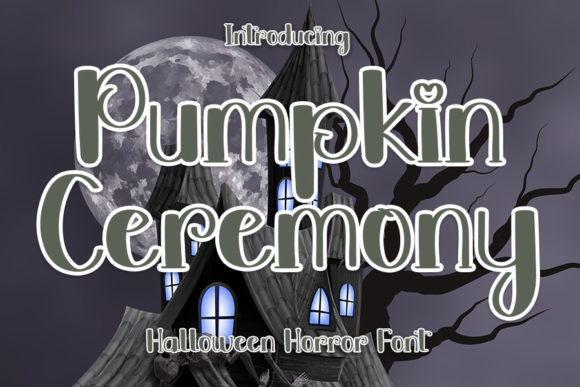
Dive into the Enchanting Realm of Pumpkin Ceremony Font: Where Elegance Meets Whimsy!
Prepare to be swept away by Pumpkin Ceremony, a display font that weaves a spell of elegance and enchantment. Created by the visionary minds at K_IN Studio, this font is a masterpiece designed to make your designs shine. Step into a world where sophistication and whimsy intertwine, where every letter dances with grace and captivates the eyes.
Whether you're crafting breathtaking wedding place cards, conjuring enchanting invitations, or weaving magical stories through book pages, Pumpkin Ceremony will be your steadfast companion. Its meticulously crafted characters exude a timeless charm, adding a touch of timeless beauty to every project you undertake.
Picture this: Your wedding guests are greeted by place cards adorned with Pumpkin Ceremony's delicate strokes, their hearts aflutter with anticipation. The font's inherent elegance sets the tone for a celebration filled with love, laughter, and cherished memories.
Or, envision your brand's logo transformed by Pumpkin Ceremony's sophisticated allure. It's as if a symphony of elegance plays out before your eyes, captivating customers with its timeless appeal. Let your brand bask in the glow of Pumpkin Ceremony, leaving an indelible mark on the minds of your audience.
Journey through the pages of a book graced with Pumpkin Ceremony's enchanting presence, where each word dances with grace and invites readers into a world of wonder. Its whimsical charm breathes life into characters, drawing readers deeper into the story's embrace.
With Pumpkin Ceremony as your creative ally, you'll unveil a world of possibilities, where every design project blossoms into a visual masterpiece. Its versatility knows no bounds, effortlessly adapting to a myriad of creative endeavors.